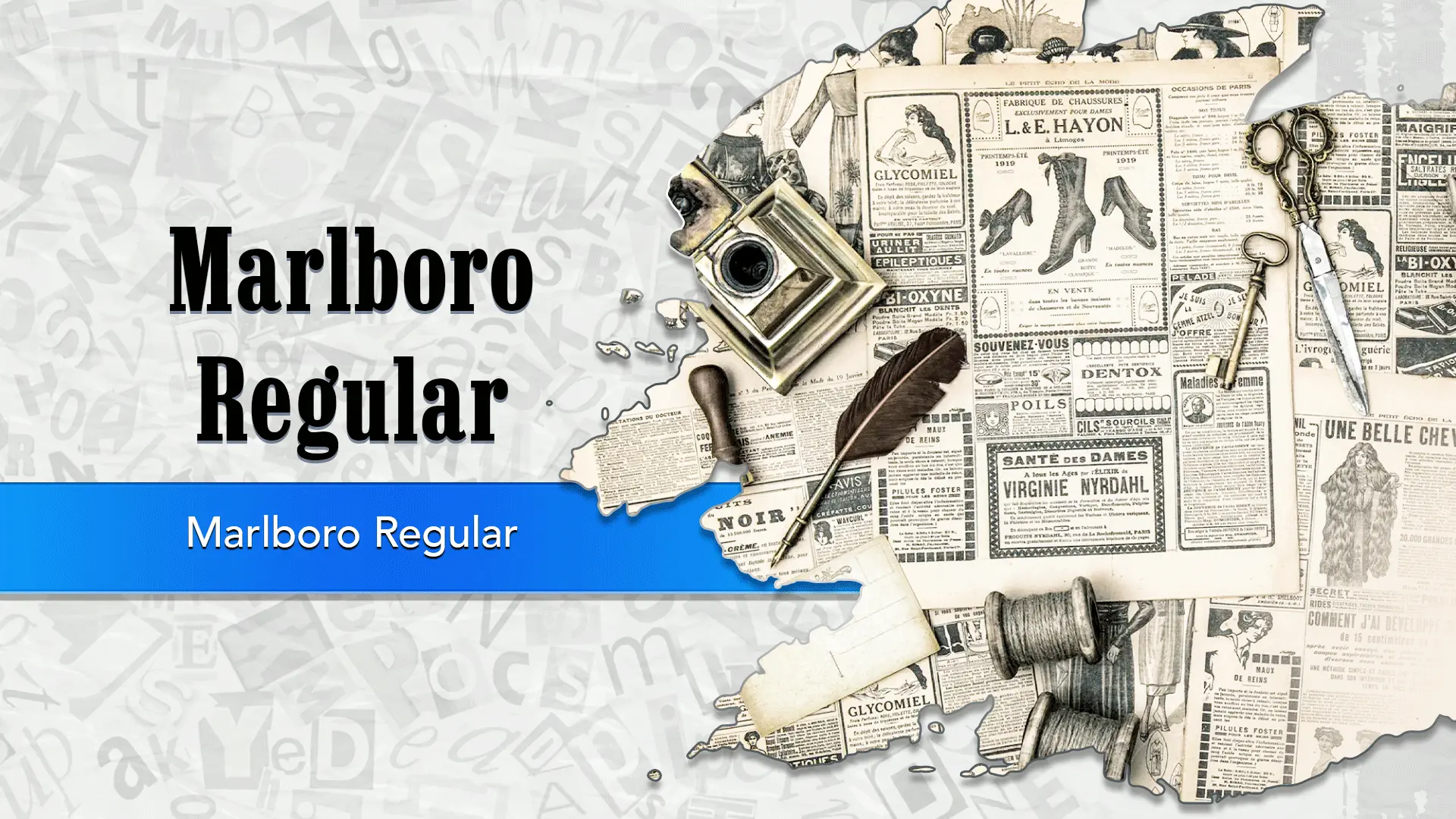
The Marlboro font family may be ideal for you if you enjoy working on an artistic design project. The lively, expressive look of this typeface, which was created by Typographer Mediengestaltung, makes it ideal for Retro/Vintage Branding(Product Packaging, Logos, Brand Identity), Headlines and Display Text, Video Game Titles/Logos, Movie Posters or Film Titles, and other light-hearted visual projects.
Regular are the one primary font styles of the Marlboro font family. You may build dynamic, visually appealing text layouts with the distinct flair that each style offers. With crisp, readable lines and a relaxed tone.